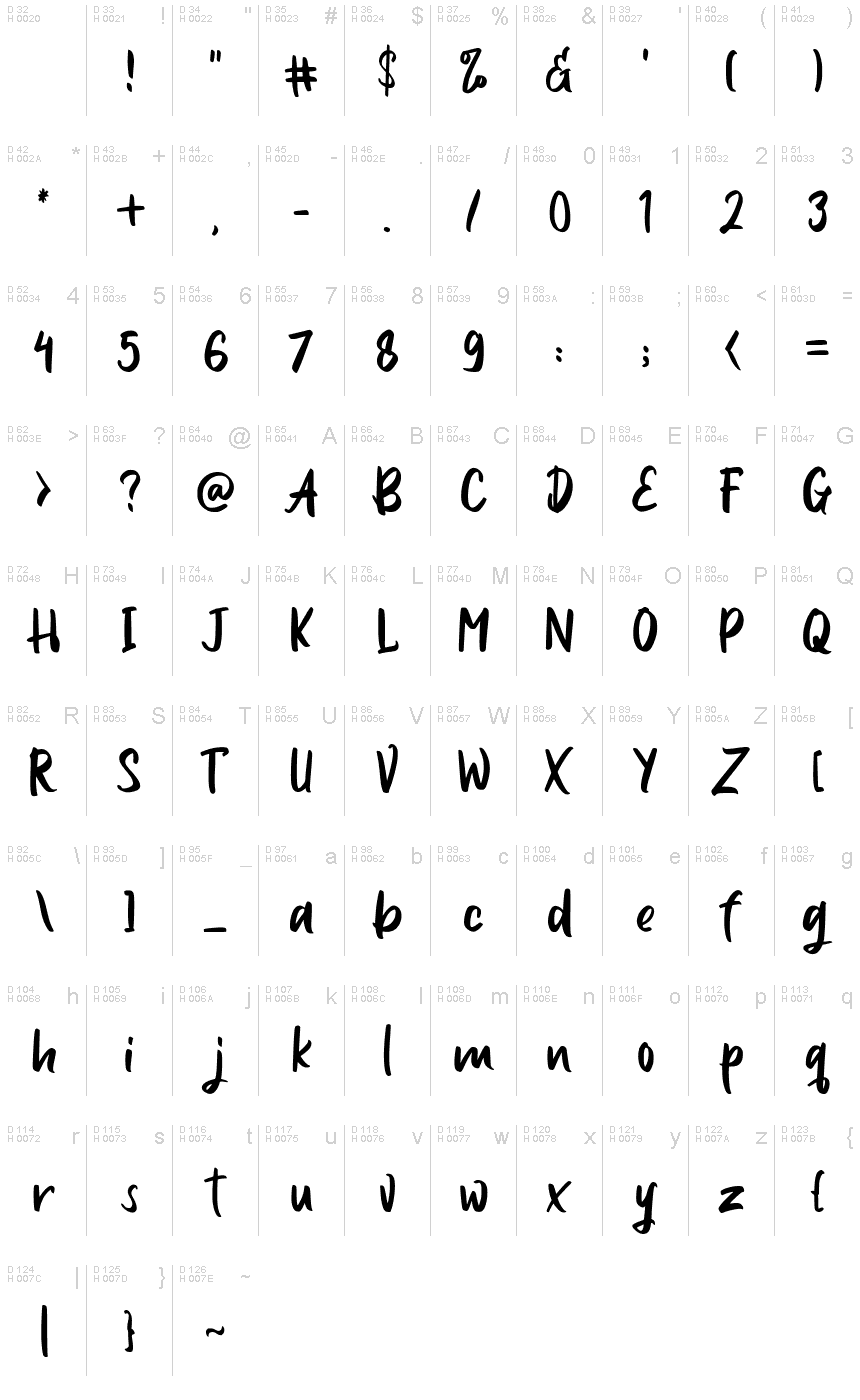
Javago
Javago, a brainchild of font designer Ikrar Bey Khubaib, captures the essence of personal touch in its handwritten style while offering a semi-condensed width that affords creative flexibility. This font stands out with its fluidity and elegance, reminiscent of classic calligraphy but with a modern twist. Each stroke in Javago is meticulously crafted to convey warmth and authenticity, making it an ideal choice for projects that require a bespoke feel.
The semi-condensed nature of Javago allows for efficient use of space without compromising on legibility or aesthetic appeal. Its distinctive character shapes and flowing lines are perfect for invitations, branding, advertising, and any design work where a human touch is desired. The versatility of Javago's style makes it suitable for both digital and print mediums, ensuring that your message is not just read but felt.